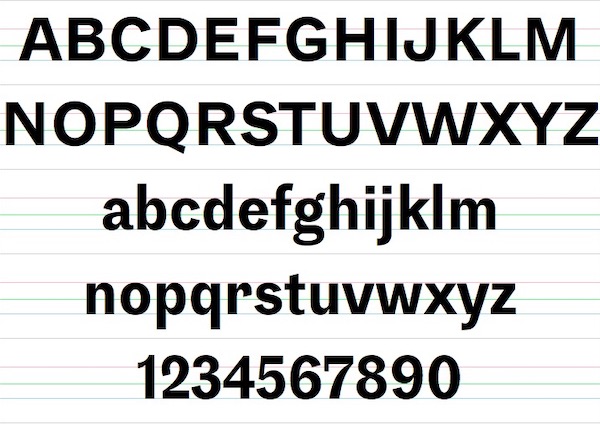
Chanel Font
Chanel font is a great & famous popular logo typeface that has another name is Couture font along with 2 gorgeous styles (Bold & Italic Bold). It was made by Chase Babb in 2012, and this sans serif font giving a smooth and elegant feel to every design.
Chanel Logo Font